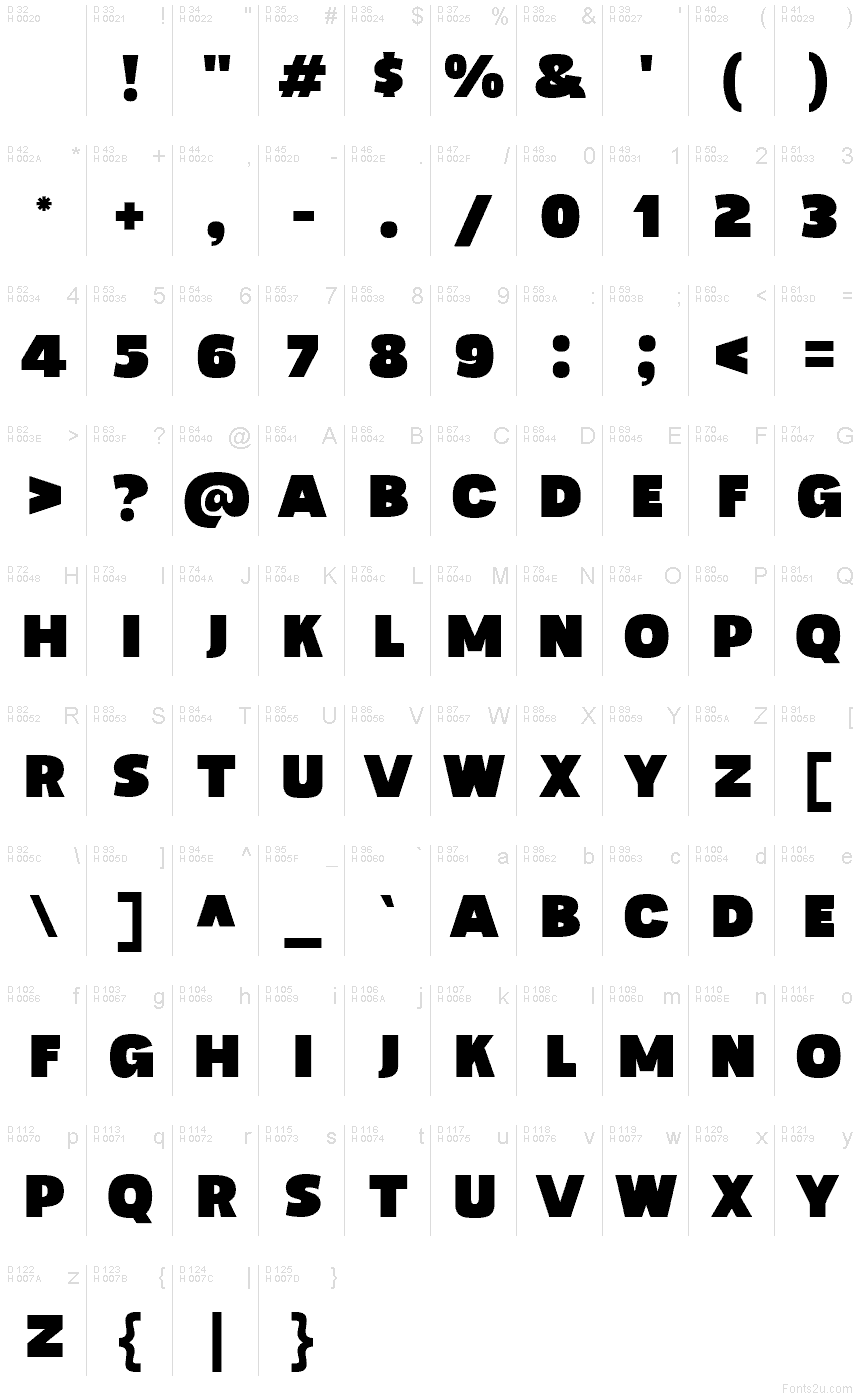
Gresham
Gresham font by MJType is a free bold sans serif display font that solves a familiar headache: getting big, punchy type that doesn’t turn shouty. Its blocky silhouette, slightly rounded corners, and even rhythm give headlines muscle without the bark—think thick, sturdy stems and compact widths that stack tightly while staying legible. The counters stay open, so it reads clean at a glance, even with tighter tracking.
Using Gresham, you can nail posters, sports branding, thumbnails, packaging, event flyers, signage, and bold website headers. This free font shines when set large with confident spacing; start at generous sizes and tighten letter-spacing by a hair for extra cohesion. Pair with a light, neutral sans for body copy to let the heft really pop.